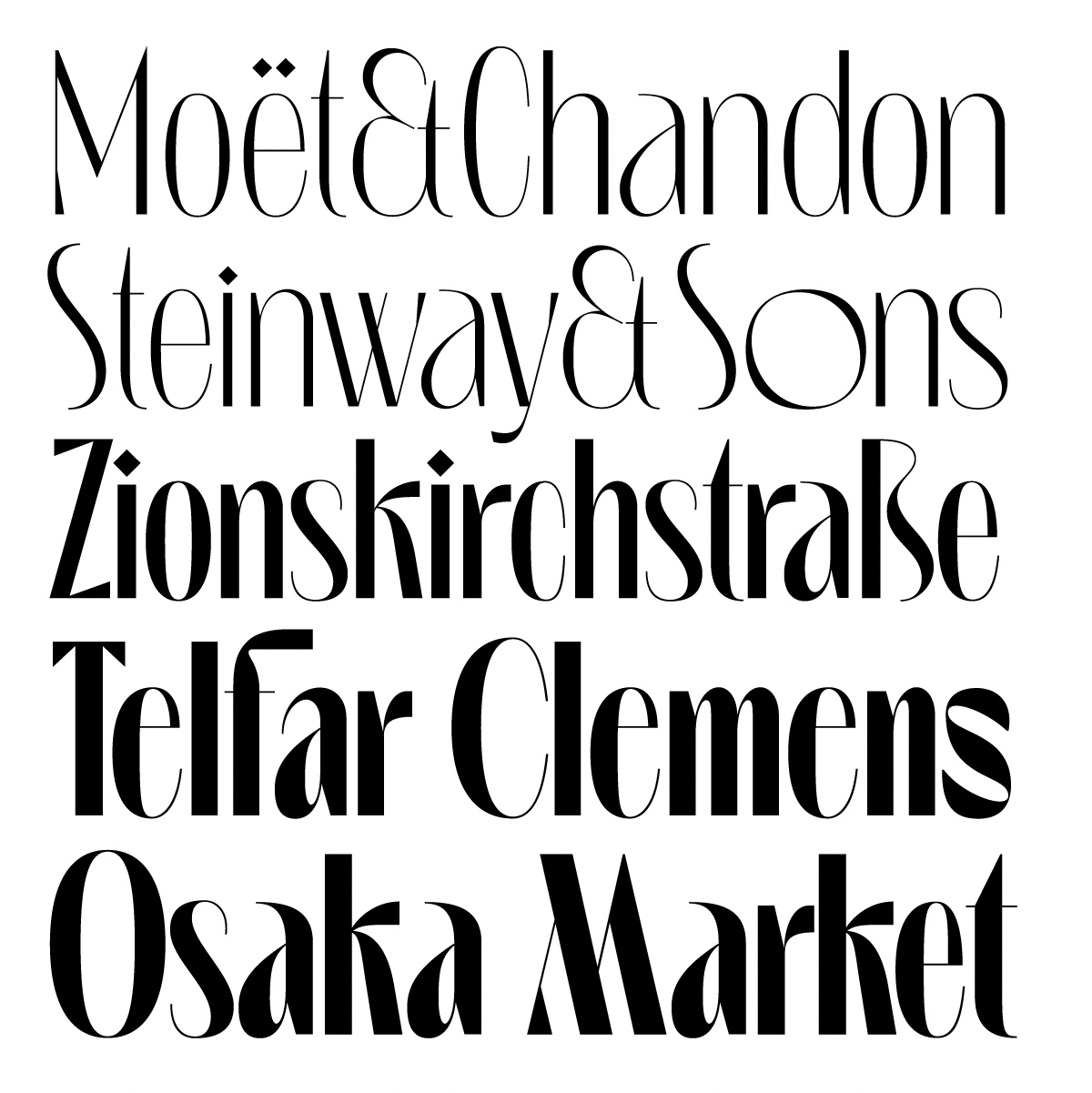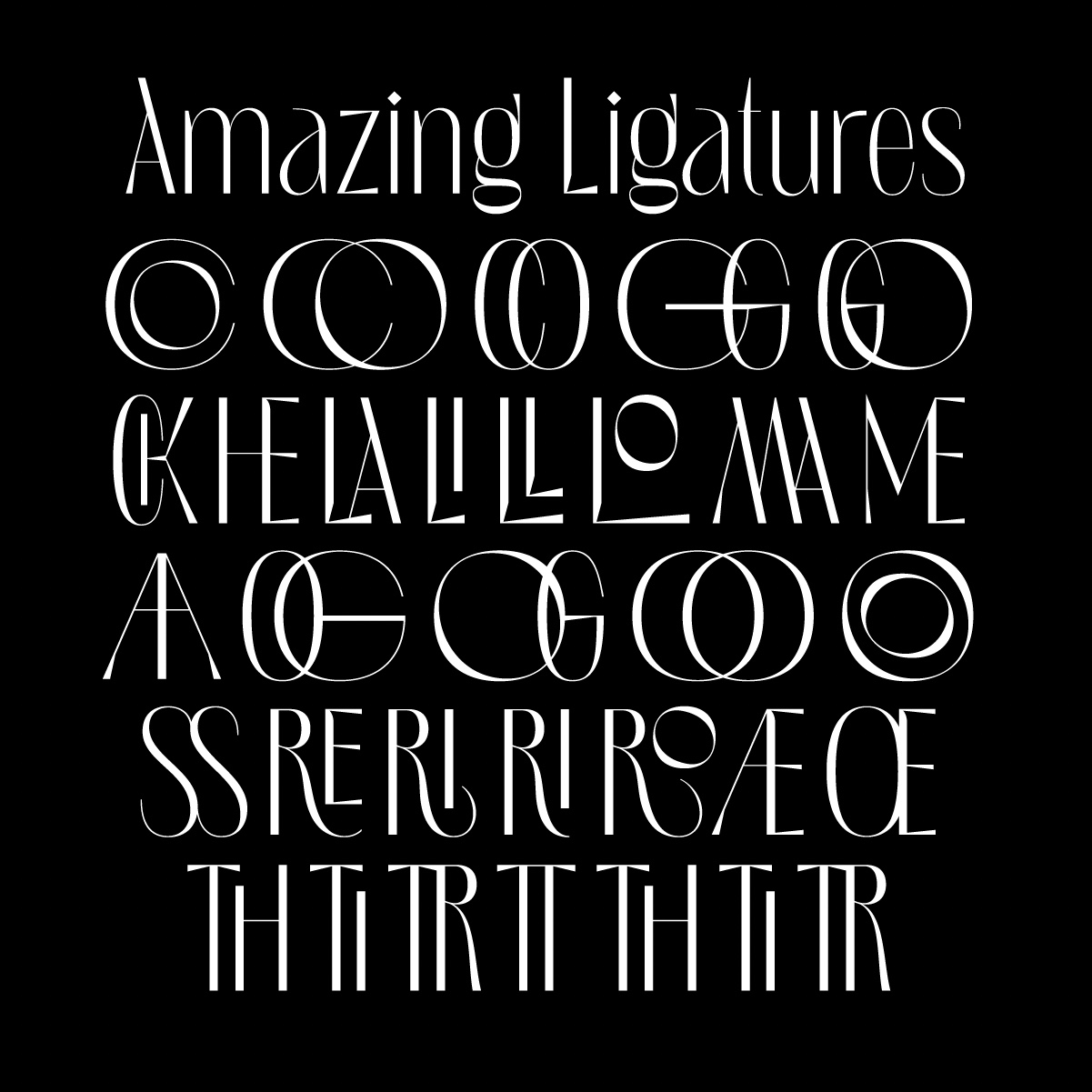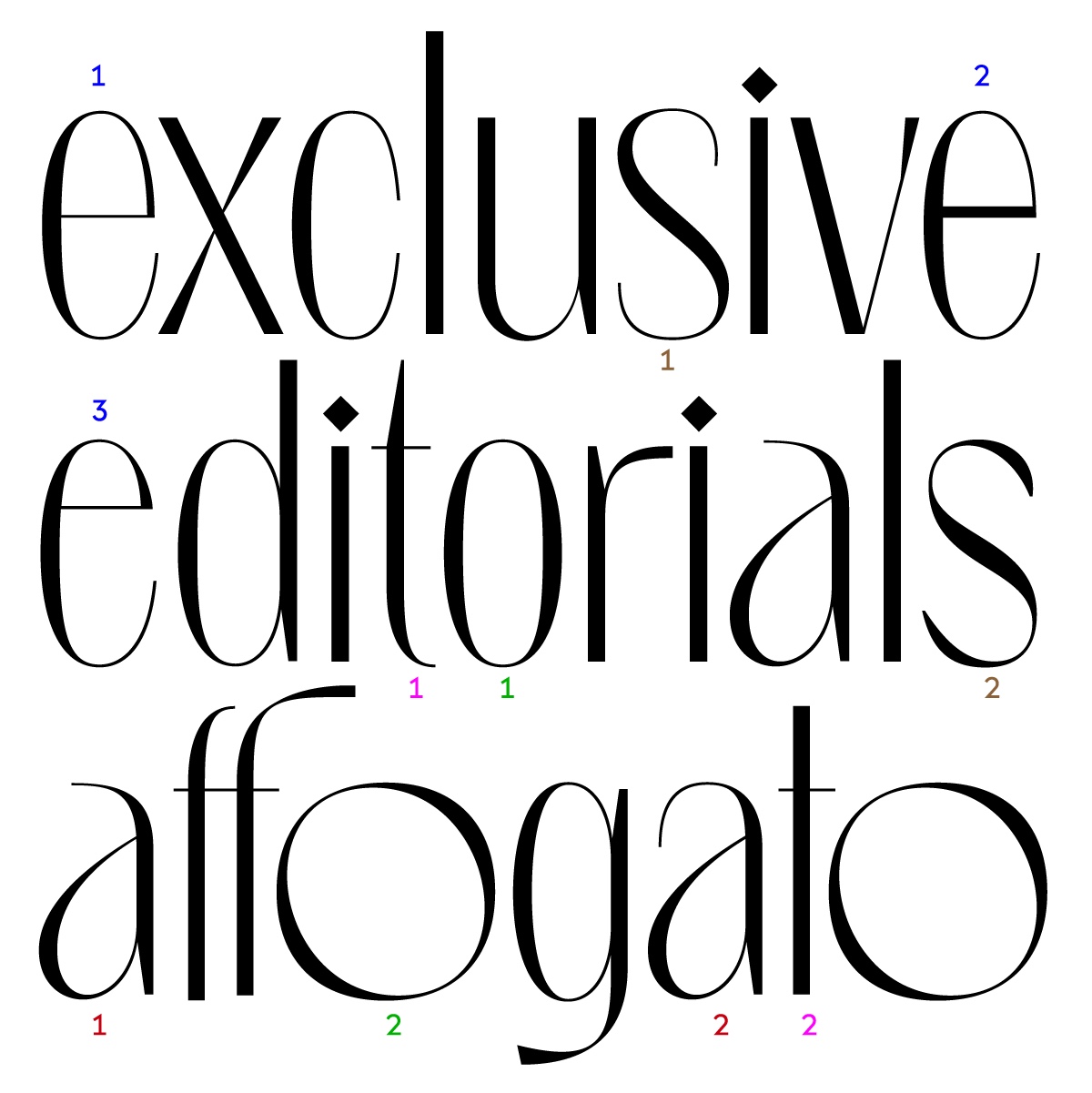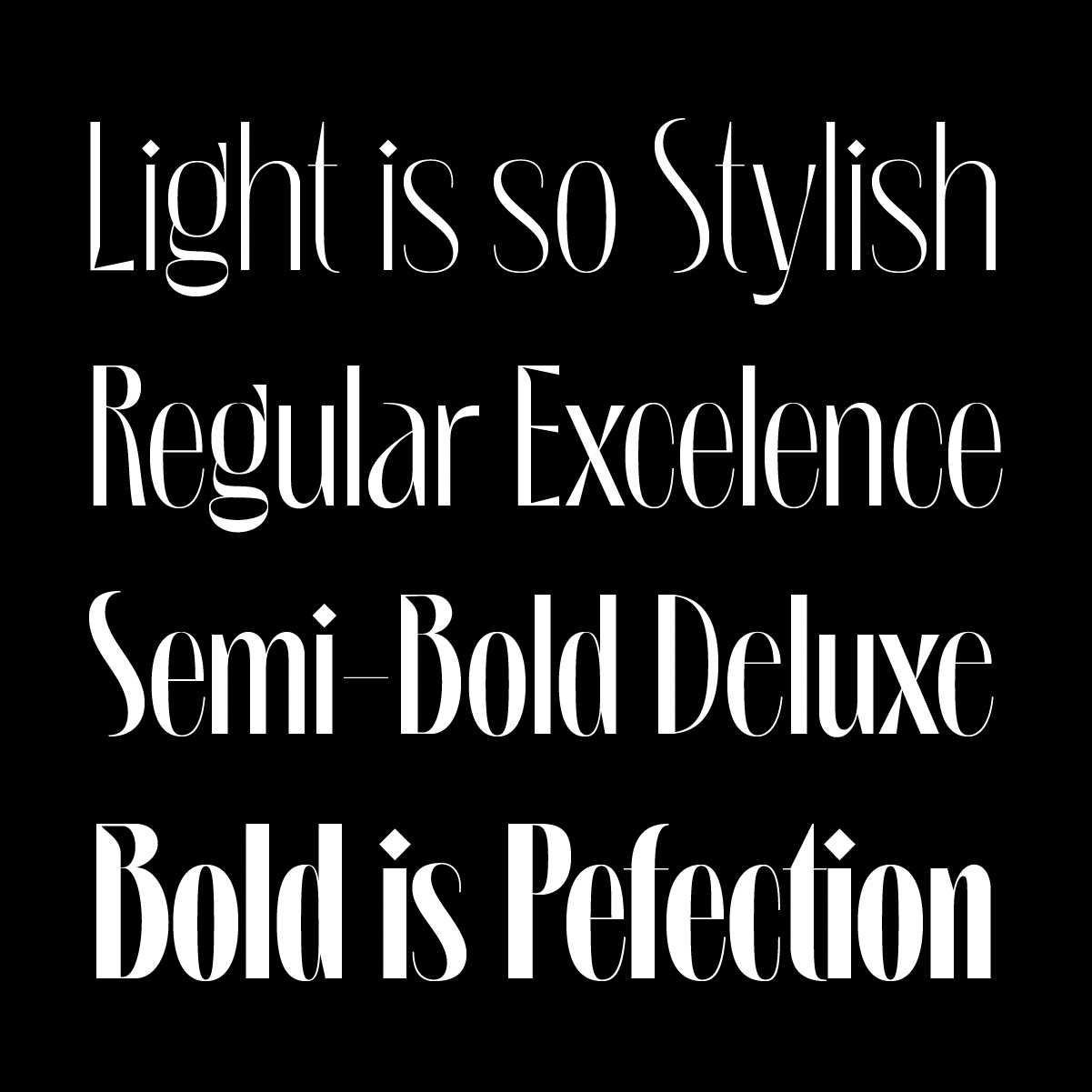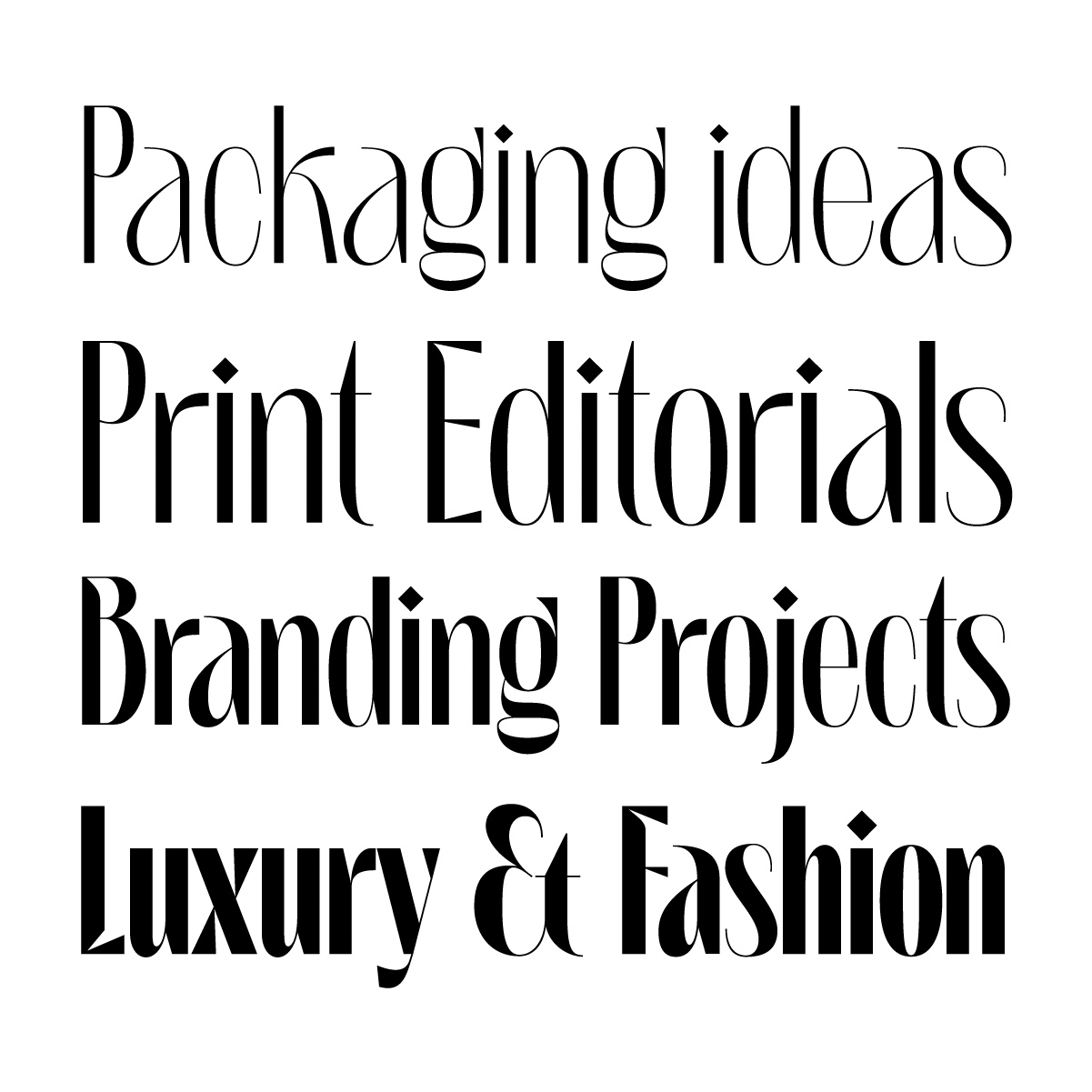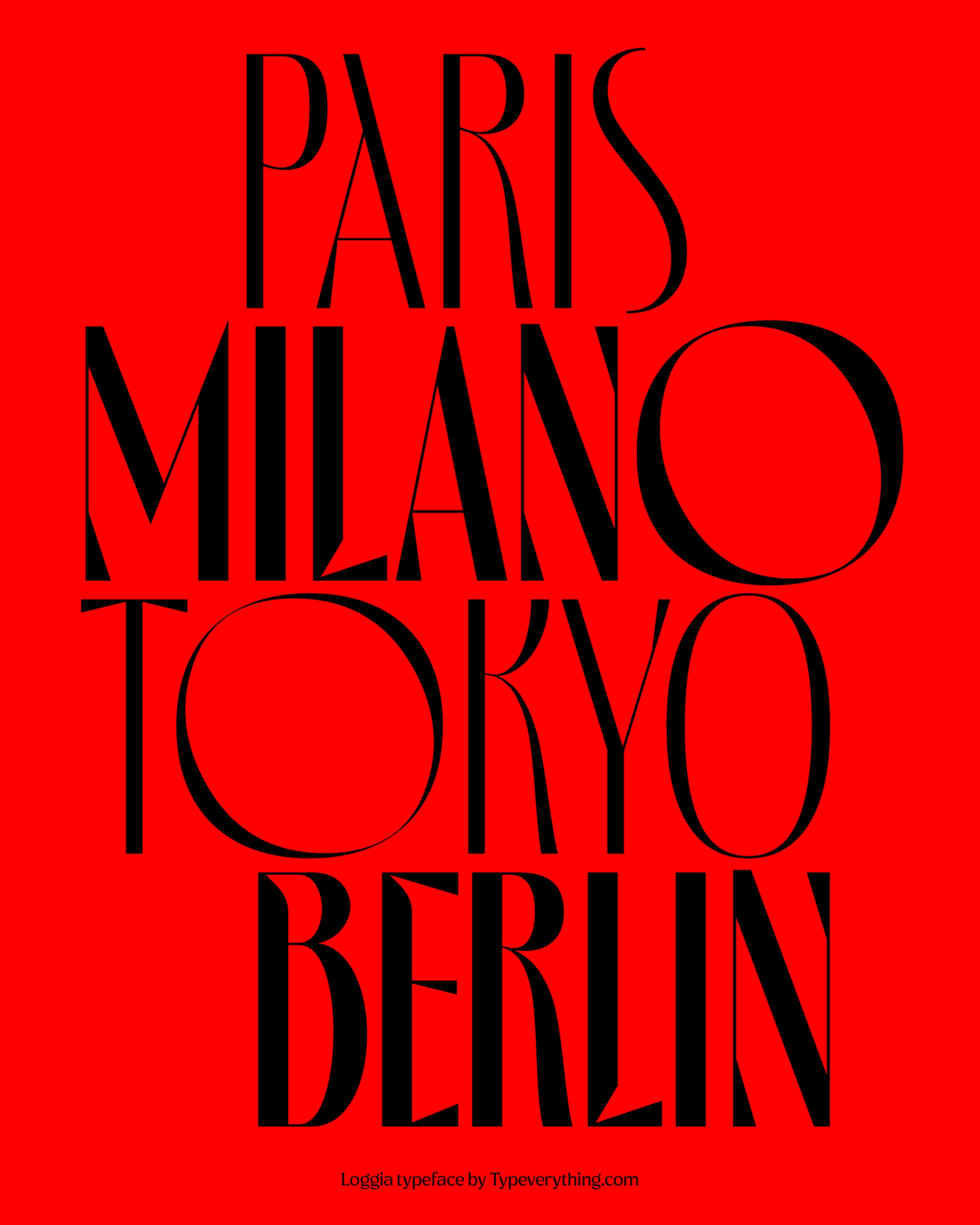
Loggia Typeface
Loggia is a sophisticated display typeface designed for premium and luxury applications. With a comprehensive set of ligatures and alternates, this font provides a wealth of design possibilities to elevate your brand materials to the highest level of elegance and style. Available in 8 distinct weights, Loggia is the perfect choice for projects that demand sophistication, glamour, and refinement. The full family pack includes a variable font file, offering even more customization options to meet your specific design needs. Whether you're creating a stylish logo, an eye-catching poster, or a beautifully crafted website, Loggia will help you communicate your brand's essence with sophistication and flair.